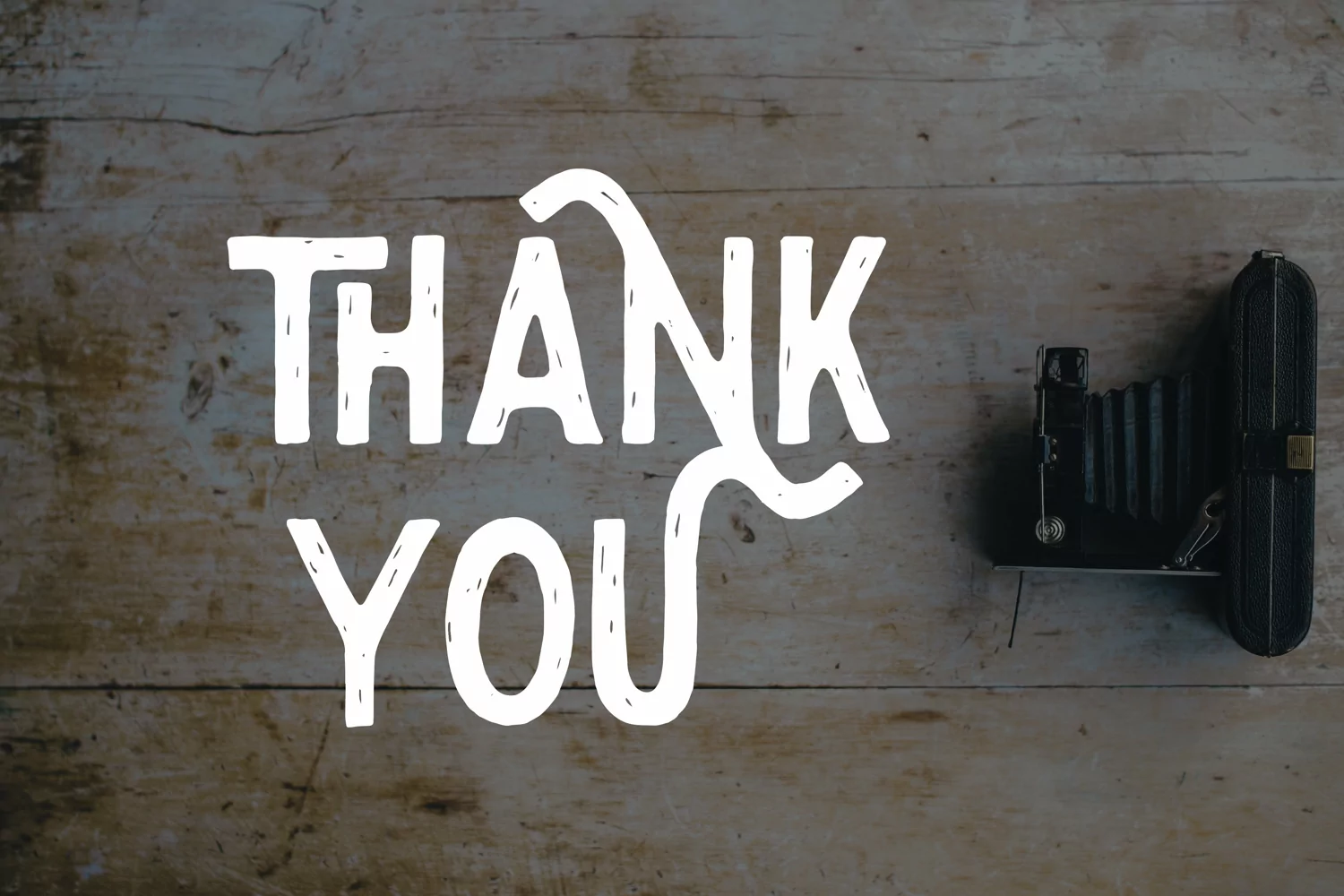
Eudora is a font with the natural texture. Inspired from vintage label, packaging and display.
Eudora is perfect for branding project, logotype, label, product packaging, headline, letterhead, typography, apparels, or simply as stylish text to any background image.
Features :- Stylistic Alternate
- Ligature